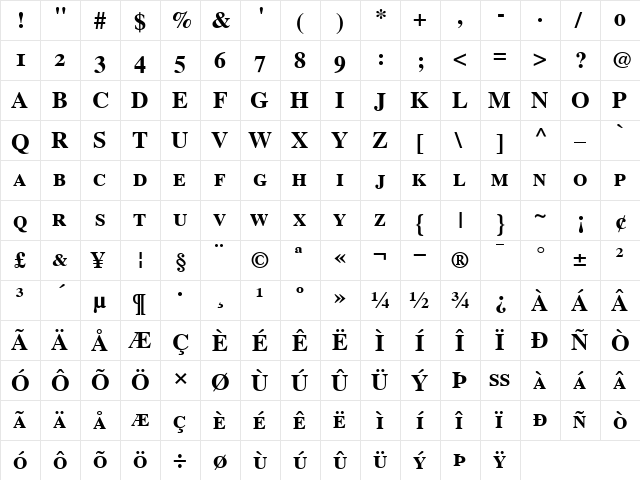
TimesSmallCaps&OldStyleFigures Bold Font Preview
TimesSmallCaps&OldStyleFigures Bold
Design Context for TimesSmallCaps&OldStyleFigures Typeface
TimesSmallCaps&OldStyleFigures brings classic typographic sensibility to the table — its serifs and measured letterforms reflect centuries of print heritage. The heavy weight commands attention and anchors typographic hierarchies.
Pro Tip: Use TimesSmallCaps&OldStyleFigures for editorial body copy and considered headline work. Pair with a neutral sans for UI elements or captions to create a classic hierarchy.